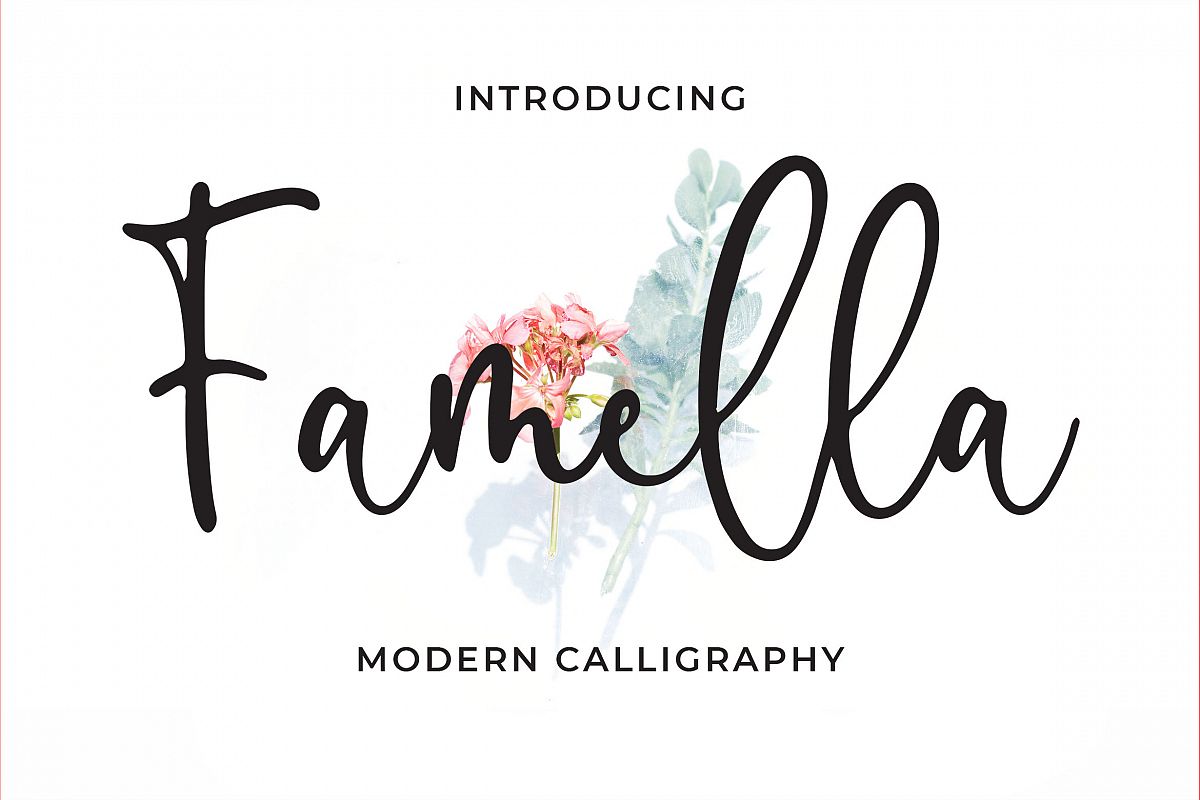
Introducing of our new product the name is Famella Modern Calligraphy Font. Famella made by brush pen inti digital this font is a fun theme very good for logo, signature, poster, fashion, quote poster, flyer, landing page etc.
MULTILINGUAL ACCENT :
ŽžŠŒšŸÀÁÂÃÄÅÆÇÈÉÊËÌÍÎÏÐŁÑÒÓÔÕÖØÙÚÛÜÝßàáâãäåæçèéêëìíîïłñòóôõöøùúûüýÿ